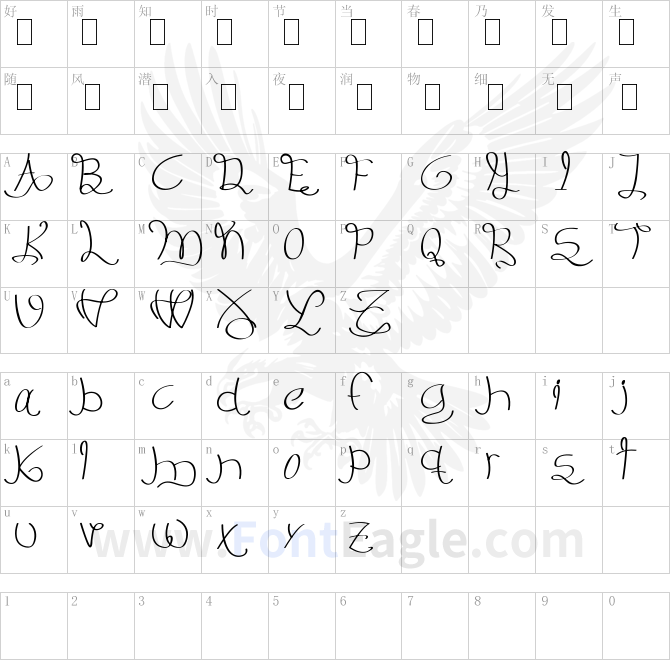
- Font name:Melinett 3
- Font Subfamily ID:Melinett 3 – LJ-Design Studios Italic:Version 1.00
- Font Full Name:Melinett 3 – LJ-Design Studios Italic
- Font Version:Version 1.00 January 12, 2015, initial release
- Postscript:Melinett3-LJ-DesignStudios-Italic